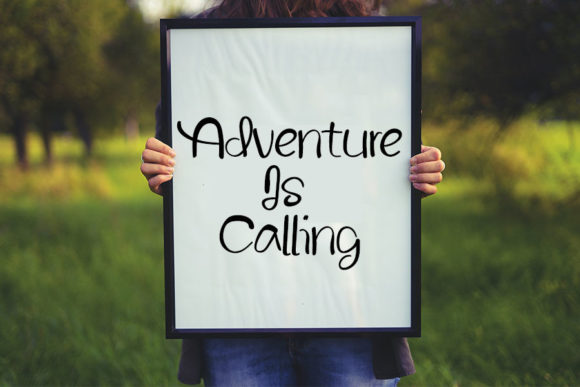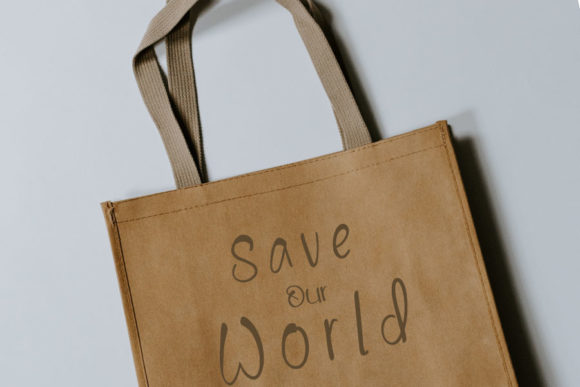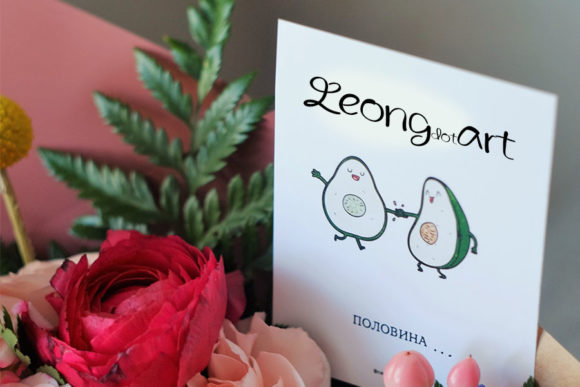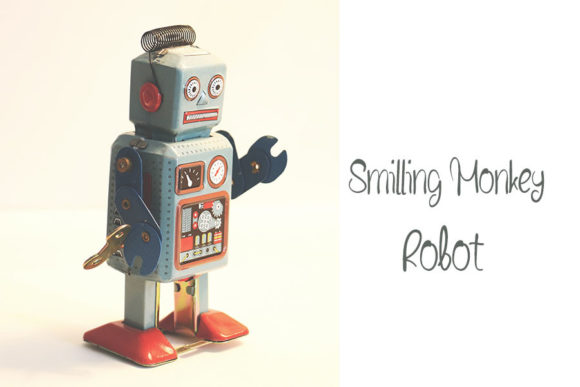
Baby Jorge Font: The Perfect Addition to Your Creative Projects
Are you a designer or crafter looking for a font that can elevate your creative projects to the next level? Look no further than Baby Jorge Font. This delicate, elegant, and flowing handwritten font is perfect for adding a touch of sophistication and whimsy to your designs.
What Makes Baby Jorge Font So Special?
Baby Jorge Font is a beautifully crafted font that boasts well-balanced characters, making it versatile and easy to pair with a wide range of designs. Its elegant and flowing script is perfect for creating eye-catching titles, headings, and body text that will capture the attention of your audience.
One of the standout features of Baby Jorge Font is its delicate and refined aesthetic. The font’s slender lines and curves create a sense of movement and fluidity, making it perfect for designs that require a touch of elegance and sophistication.
Why Designers and Crafters Love Baby Jorge Font
Designers and crafters love Baby Jorge Font for its versatility and ease of use. The font is perfect for a wide range of creative projects, including:
- Blog and website design
Whether you’re creating a logo, brochure, or social media graphic, Baby Jorge Font is the perfect choice. Its elegant and flowing script adds a touch of sophistication and whimsy to any design, making it sure to capture the attention of your audience.
How to Use Baby Jorge Font in Your Designs
Using Baby Jorge Font in your designs is easy. Here are a few tips to get you started:
- Pair Baby Jorge Font with bold and modern fonts for a striking contrast
- Use Baby Jorge Font as a headline font to add a touch of elegance and sophistication
- Use Baby Jorge Font to create eye-catching titles and headings that will capture the attention of your audience
Baby Jorge Font is a versatile font that can be used in a wide range of design applications. Its delicate and elegant aesthetic makes it perfect for designs that require a touch of sophistication and whimsy.
The Benefits of Using Baby Jorge Font
There are many benefits to using Baby Jorge Font in your designs. Here are a few:
- Elegance and sophistication: Baby Jorge Font adds a touch of elegance and sophistication to any design
- Versatility: Baby Jorge Font can be used in a wide range of design applications, from branding and packaging to social media graphics and blog design
- Easy to read: Baby Jorge Font is clear and easy to read, making it perfect for body text and headings
- Unique and creative: Baby Jorge Font is a unique and creative font that will help your designs stand out from the crowd
Overall, Baby Jorge Font is a beautiful and versatile font that is perfect for designers and crafters looking to add a touch of elegance and sophistication to their creative projects.
In conclusion, Baby Jorge Font is a delicate, elegant, and flowing handwritten font that is perfect for adding a touch of sophistication and whimsy to your designs. Its well-balanced characters and elegant aesthetic make it versatile and easy to pair with a wide range of designs. Whether you’re a designer or crafter, Baby Jorge Font is a great choice for any creative project.
So why not give Baby Jorge Font a try? Add it to your most creative ideas and notice how it makes them come alive!